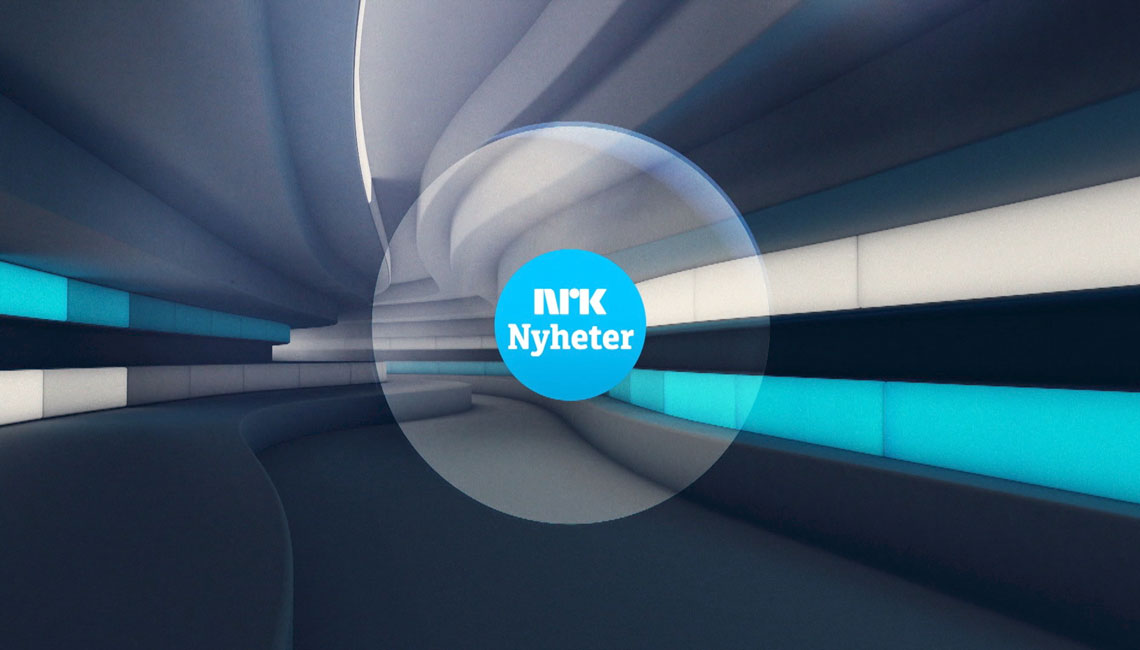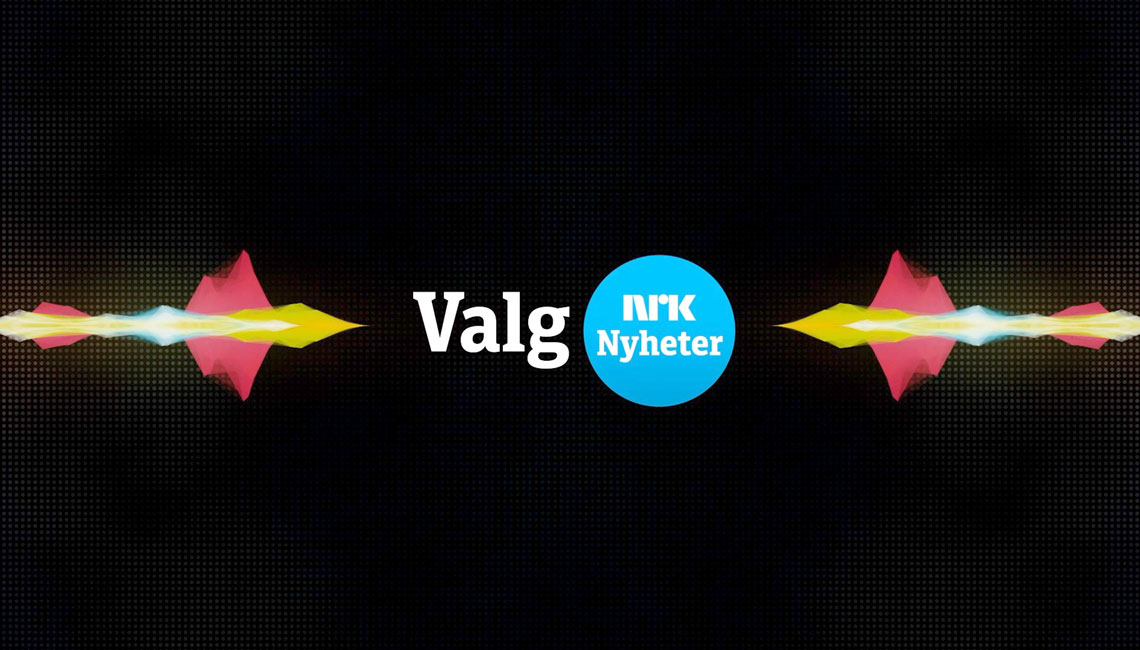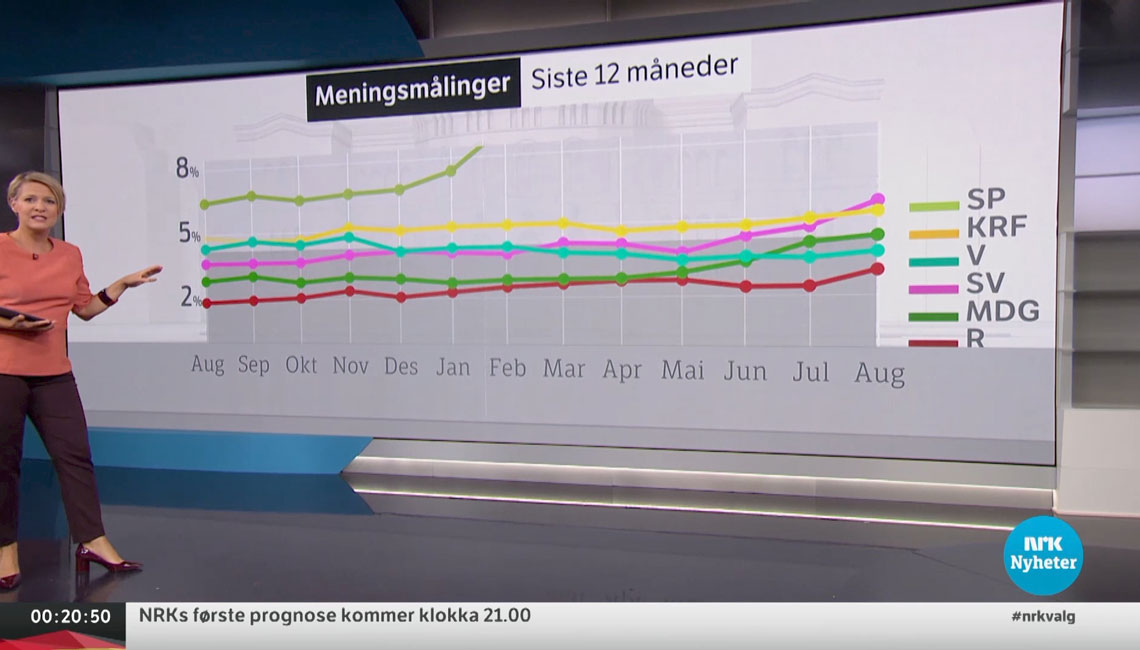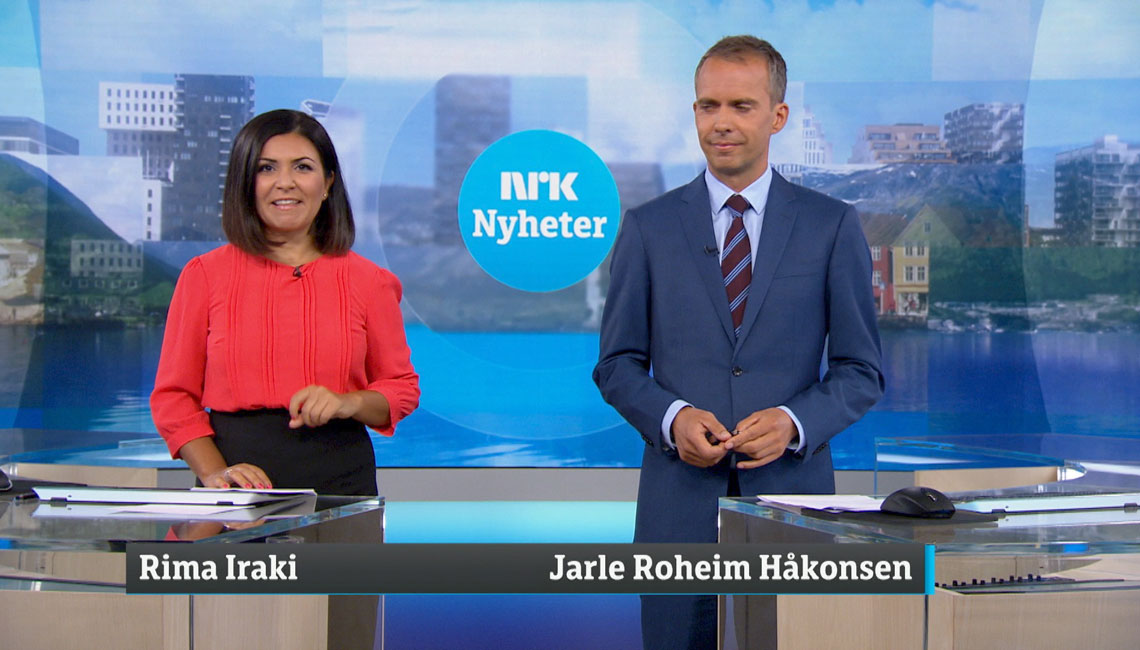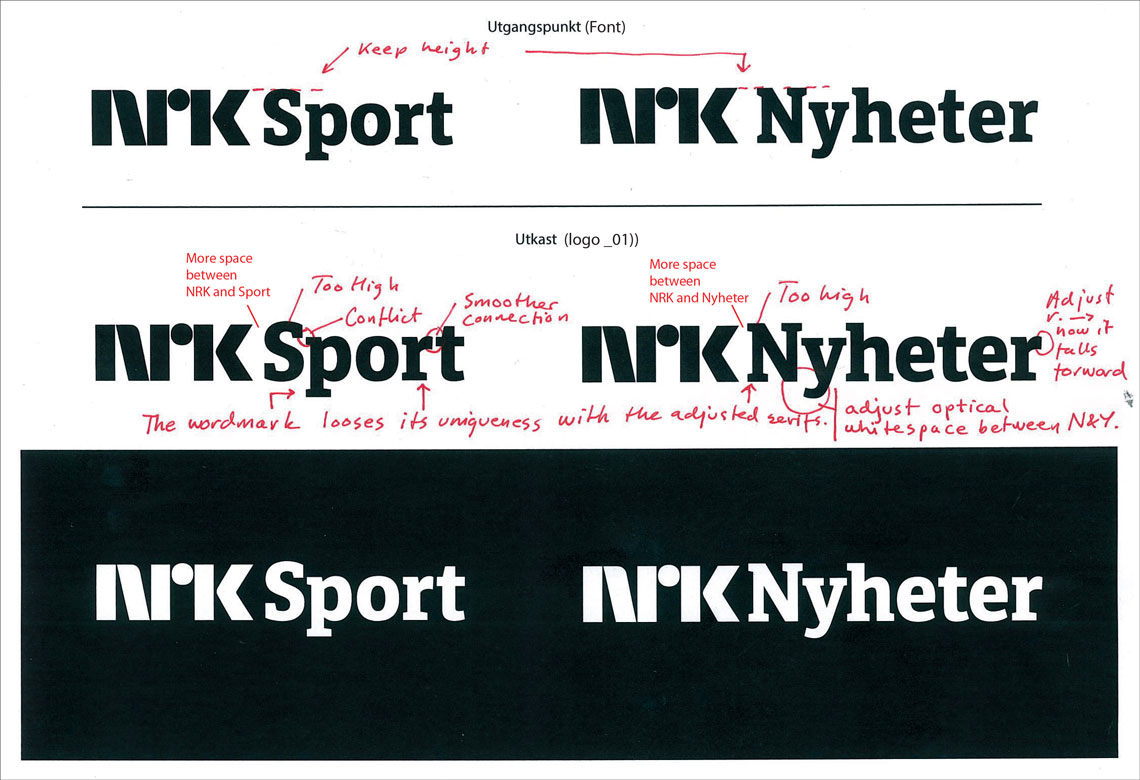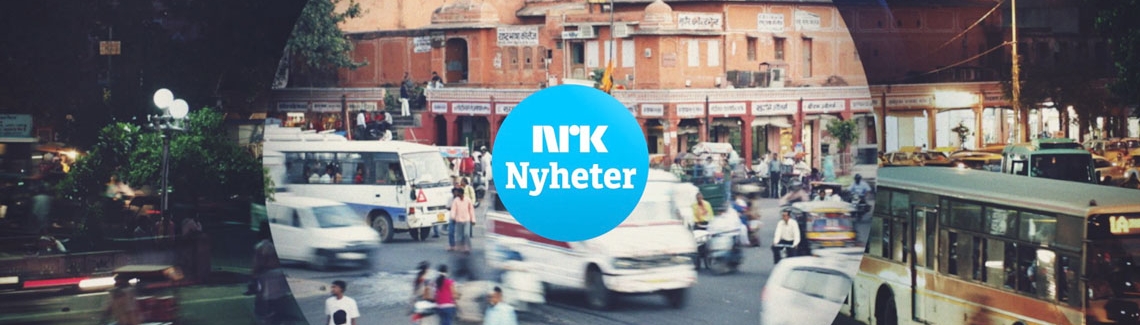
NRK Logotype
The public Norwegian TV station, NRK, commissioned TypeTogether to create a tailored typeface for their new visual identity. As part of the same commission, NRK asked TypeTogether to refine the new circle logo using the tailored typeface in conjunction with the established NRK lettering for the two channels of NRK Nyheter (News) and NRK Sport.
Logotype design for the NRK TV channels
development
For a wide range of reasons, installing a font and typing the company name does not make a logo. When designing a custom font, letters are created in such a way that they can fit before and after any other letter, ensuring consistency and legibility in unknown letter combinations. However, when creating a logotype, the sequence of letters is known so the shapes must be adjusted to appear harmonious and appealing.
Another thing to keep in mind is the necessity for different versions of the logo to fit a range of technical requirements, given that it will be printed on billboards and business cards, by offset and laser printers, and also reproduced in both high and low resolution screens.
NRK developed a system with three levels of logo hierarchy, meaning that special refinements had to be made for each. First, the correct weight and tone for the words Nyheter and Sport had to be defined for when they were set next to the NRK symbol on one line. At the same time, small changes to the letterforms were made to ensure a balanced wordmark. Such details include straightening the terminal of the ‘r’ in Nyheter instead of keeping the angle that appears in the typeface, and, in Sport, cutting the left side of the crossbar on ‘t’ at the same angle as the ‘r’ to visually harmonise them.
The secondary logo was more tricky and underwent several rounds of feedback and alterations. One of the main problems was to get the balance between Nyheter/Sport and NRK right. Simultaneously, balancing between the two circled logos, given the different word lengths, was an additional challenge. The two words couldn’t be the same size but had to appear similar in weight. Therefore much of the stem thickness and letter spacing had to be fine-tuned.
As seen below, the completed branding is worth the scrutiny given at each step, and this effort is what it takes to ensure the mark appears as it should in each format, at all sizes, and either seen together or by itself.
Logotype design for the NRK TV channels
Focused adjustments of letters in the logotype compared to the original design of the typeface.
Logotype design for the NRK TV channels
Comparison of the previous logotype and the updated version based on the tailored typeface.
Logotype design for the NRK TV channels
Feedback notes from client.
Logotype design for the NRK TV channels